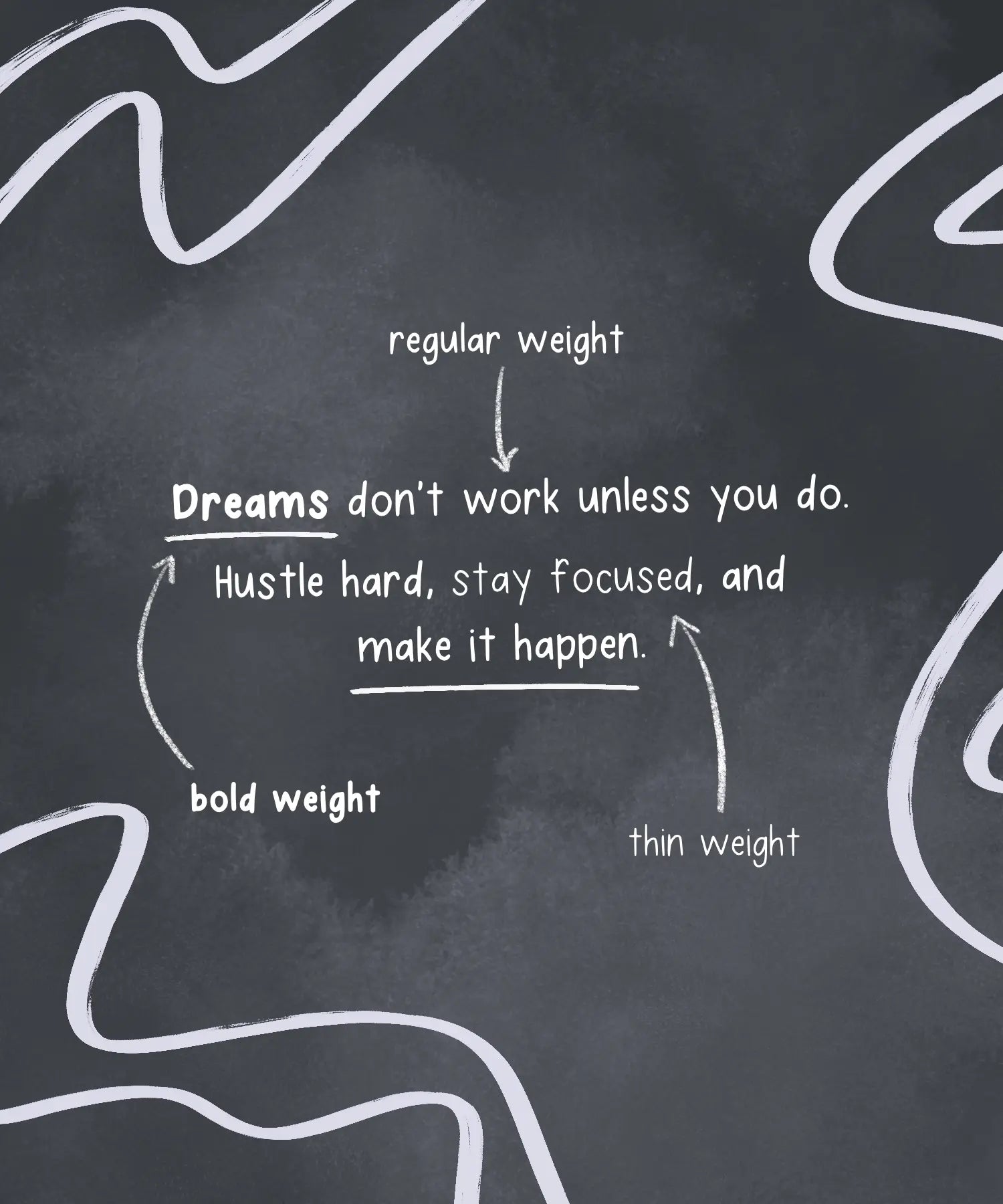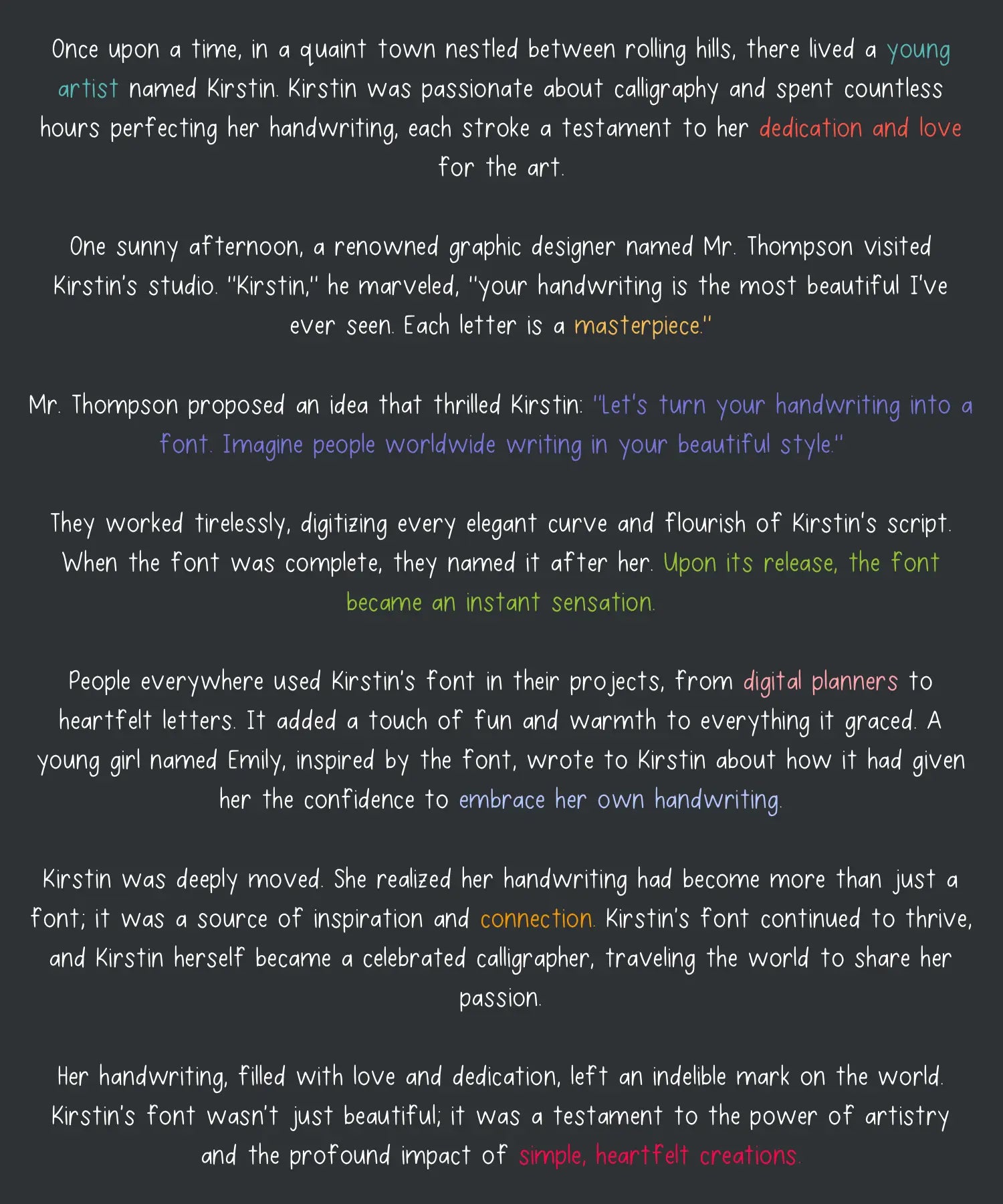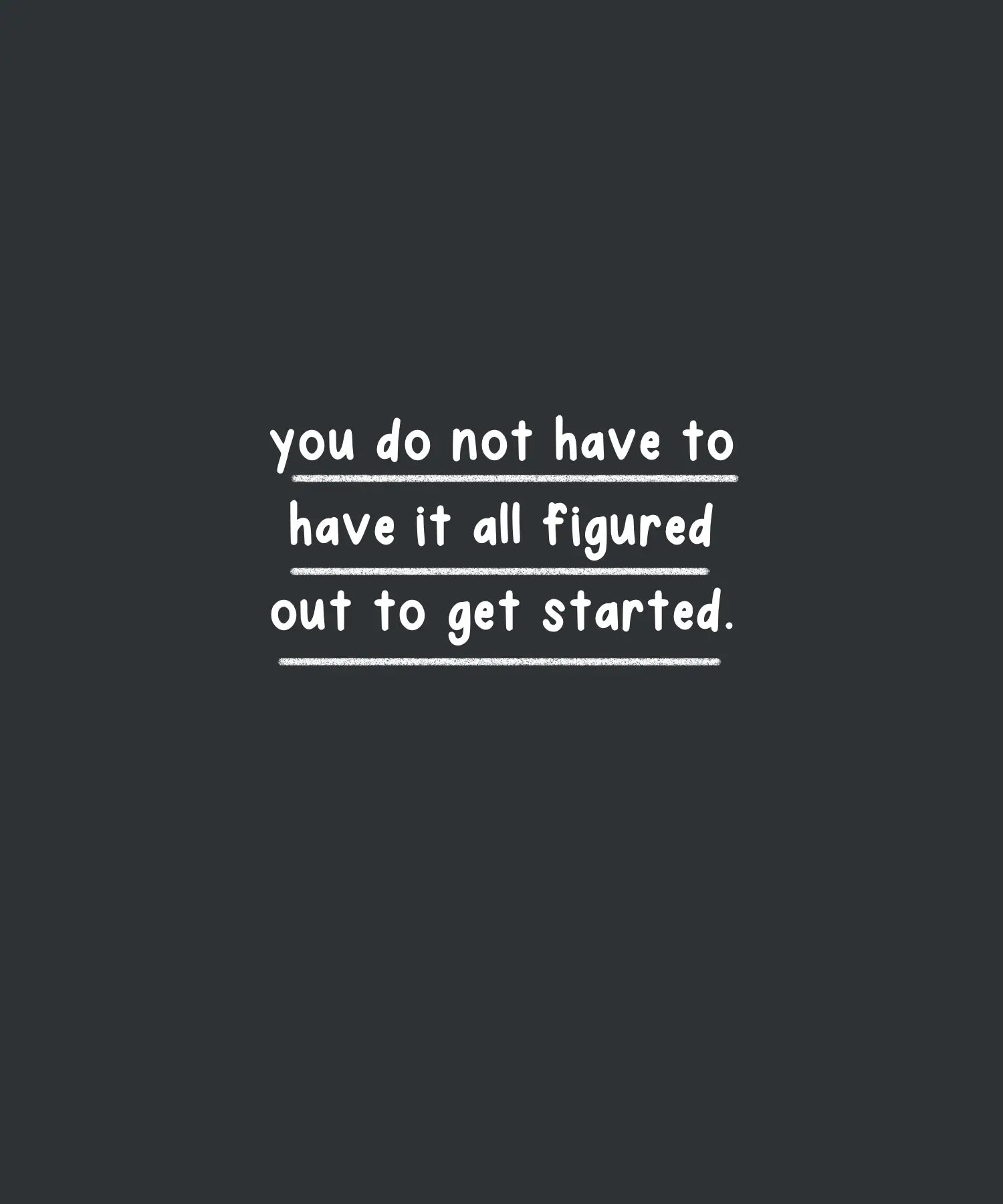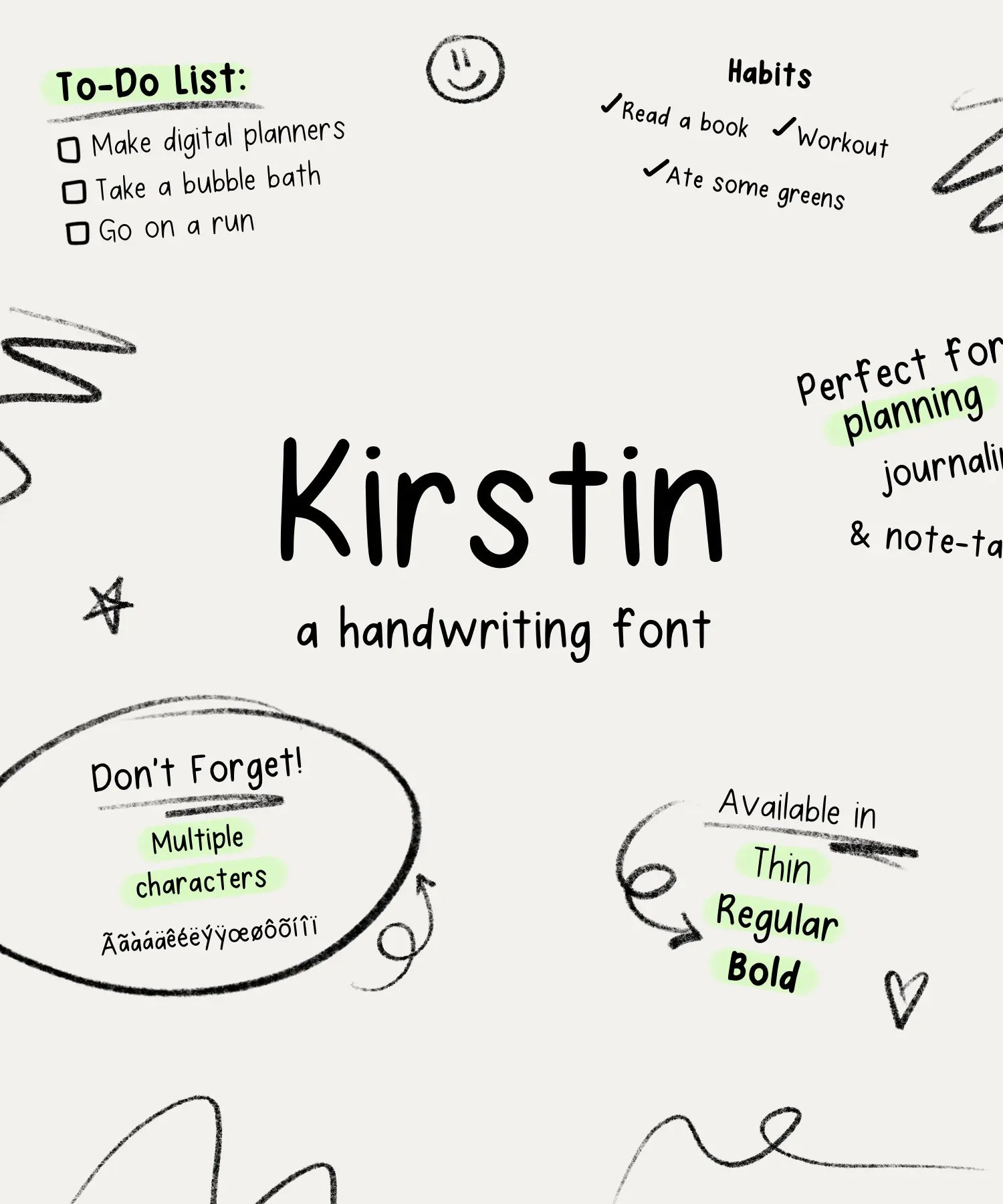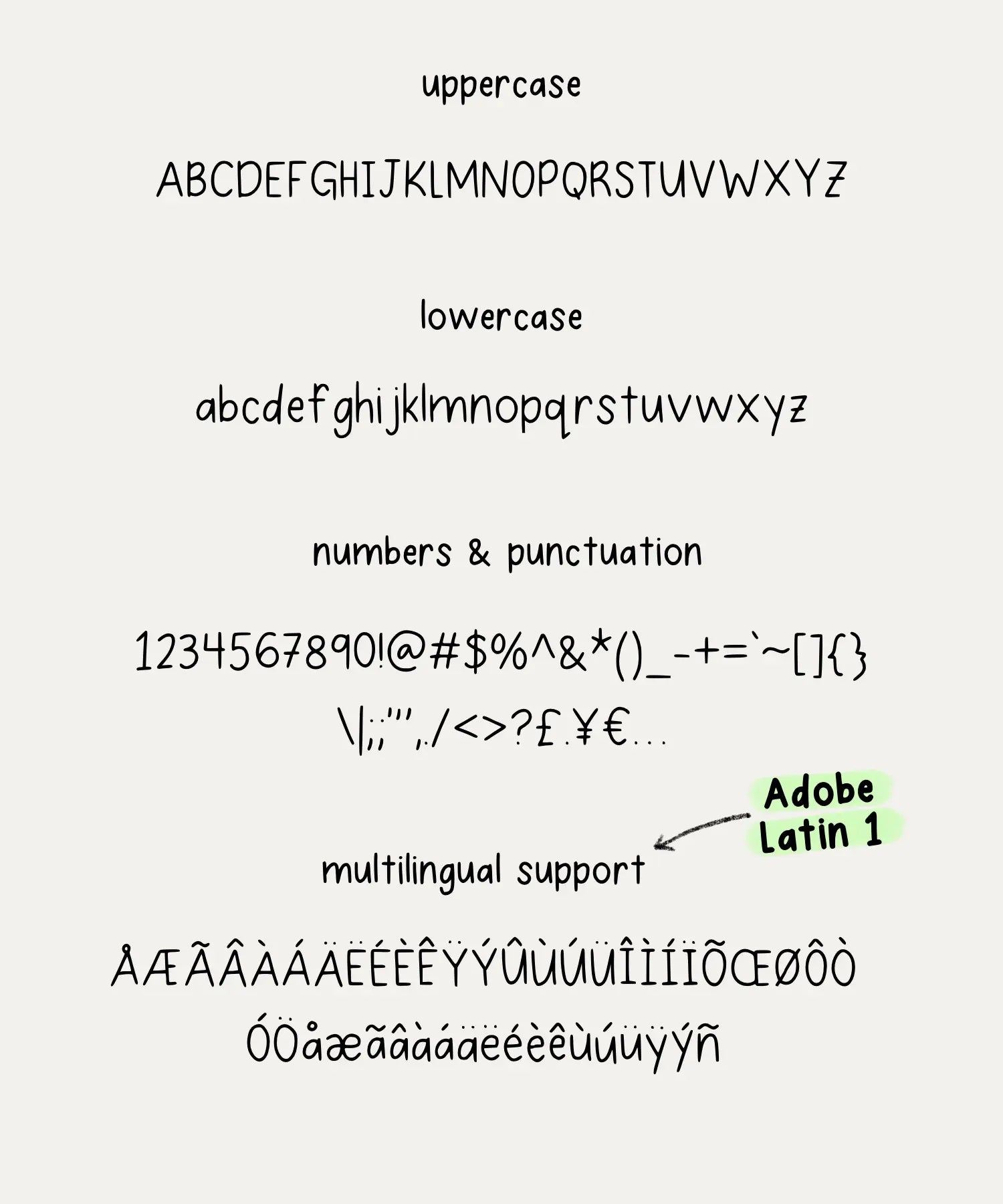
Kirstin Font
A neat handwritten font that is perfect for notes, digital planning and journaling, and much more! Available in thin, regular, and bold weights.